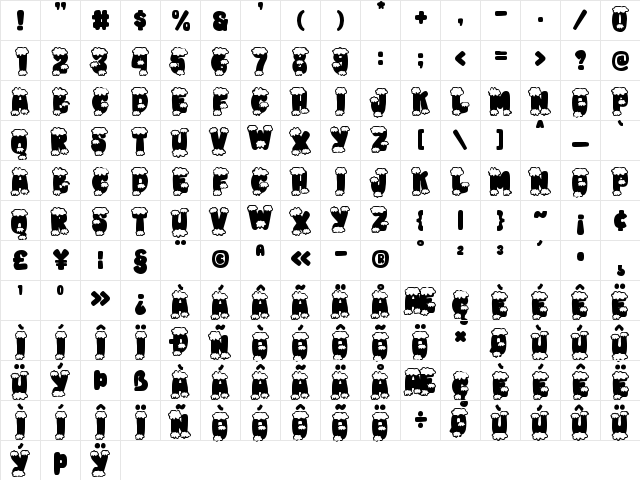
Retro Snow Regular
Foundry: Dm Letter Studio
Designer: Dimas Prasetyo
Design Context for Retro Snow
Retro Snow wears its vintage influences proudly, with letterforms that recall mid-century signage, classic packaging, and nostalgia-driven design.
Font Pairing: Combine Retro Snow with a simple slab or neutral sans - period-accurate companions reinforce the vintage feel without competing for attention.
Pro Tip: Lean into Retro Snow's period character by pairing it with aged paper textures, muted colour palettes, and vintage illustration styles.